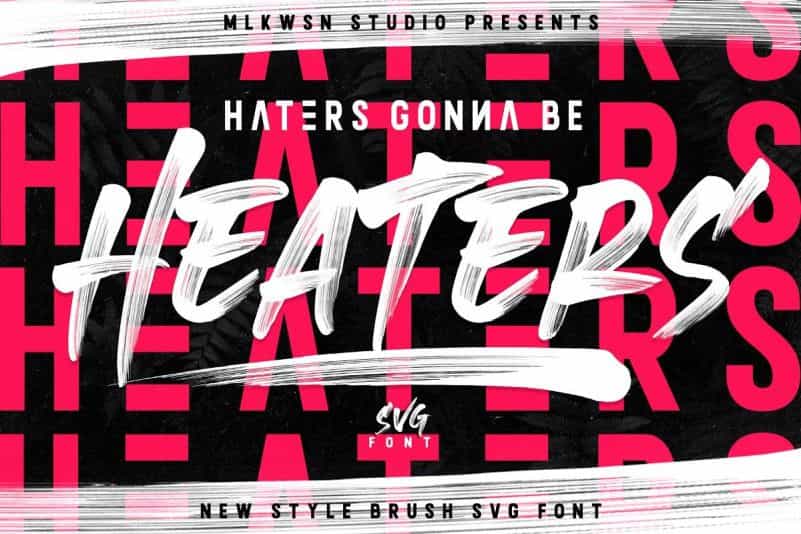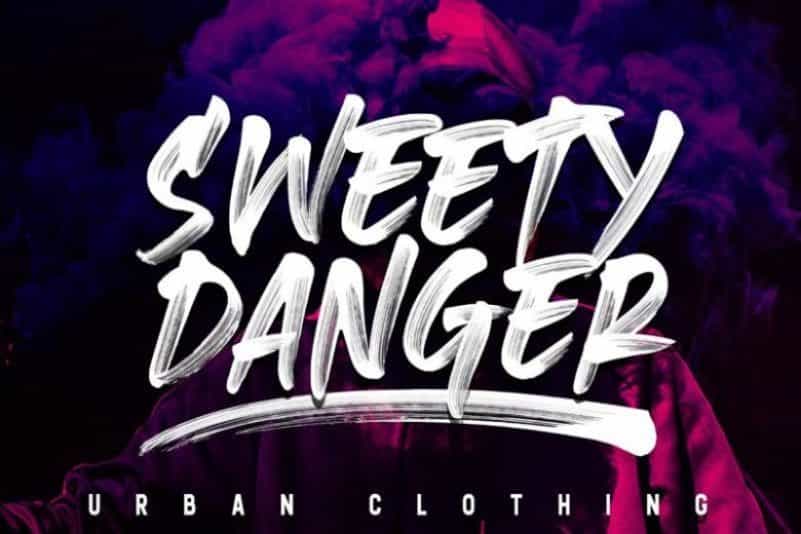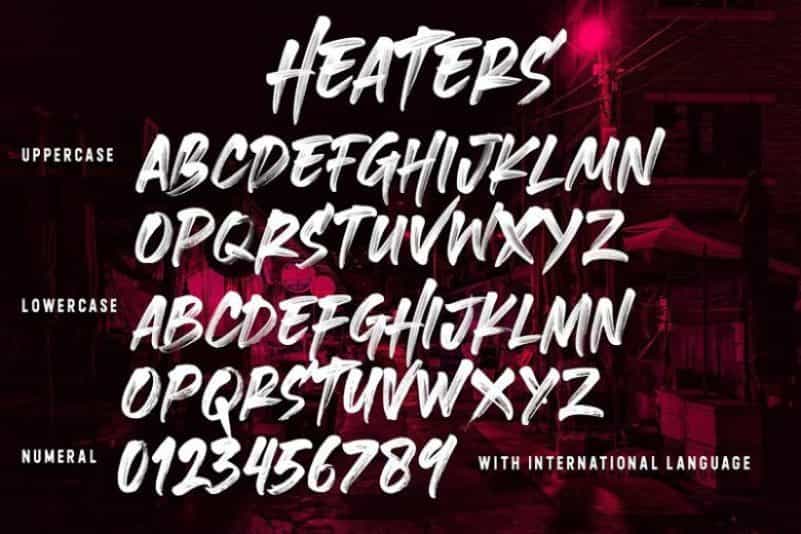
The Heaters font has all the elements of hand painted letters imitating the texture and look of the original lettering, and the use of OpenType SVG is employed. To be able to use this font, you have to have Photoshop CC 2017 or Illustrator CC 2018 or any later released version.